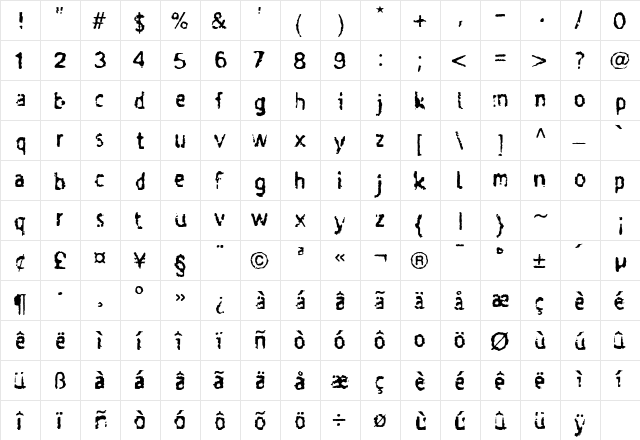
Taigatrust Regular
Design Context for Taigatrust Typeface
Taigatrust takes a measured approach to typography — its balanced proportions and neutral character make it a reliable workhorse for both digital and print work.